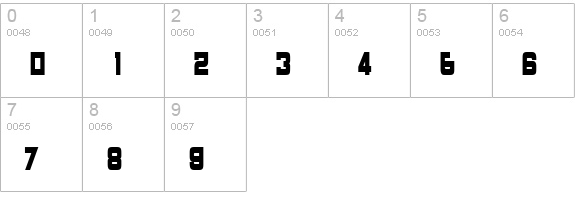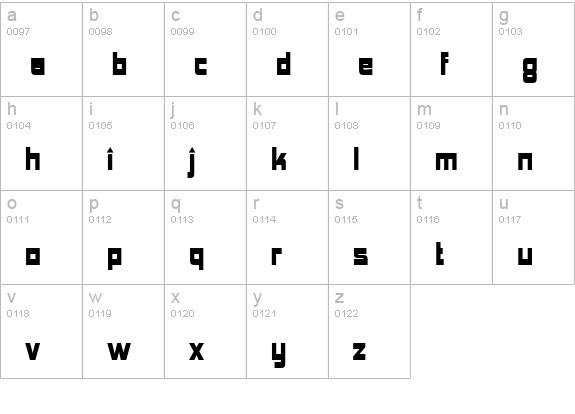
Anglepoise Lampshade Font Details
The Anglepoise Lampshade font exudes a sense of elegance and sophistication with its sleek lines and modern design. This versatile typeface is perfect for adding a touch of class to any project, whether it be a logo, poster, or website. The unique angles and curves of the characters create a visually appealing aesthetic that is sure to capture attention. What sets the Anglepoise Lampshade font apart is its seamless blend of style and functionality. The clean, crisp lines make for easy readability, while the distinctive shapes add a hint of creativity and flair. Whether you're looking to make a bold statement or simply want to add a touch of personality to your design, this font has you covered. Best of all, the Anglepoise Lampshade font is available for free download at FontsMarket.com. This means you can easily access this stunning typeface and start using it in your projects right away. Don't miss out on the opportunity to elevate your designs with this beautiful and versatile font. Download the Anglepoise Lampshade font today and let your creativity shine!